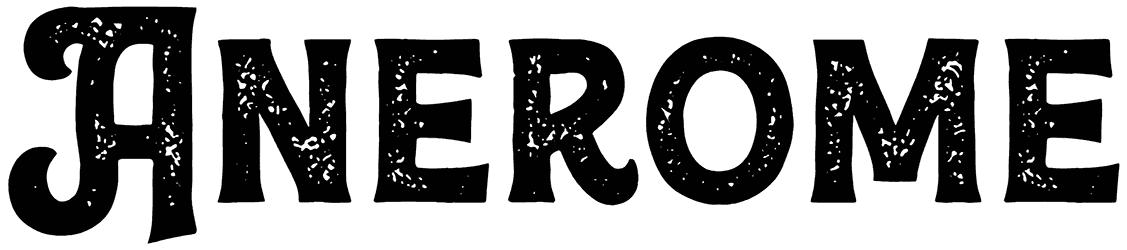
Anerome Font
Made to combine your text with a playful retro charm, Anerome makes your choice quite easy for your next signs and posters with an urban theme. This all-caps stamp font is the best at bringing some whimsy into your art and letting it stick out.
However, if you definitely need lowercase letters for your project, you should probably look at some other grunge fonts of ours on RB. After all, Anerome is made of 2 different sets of capitals and no lowercase.